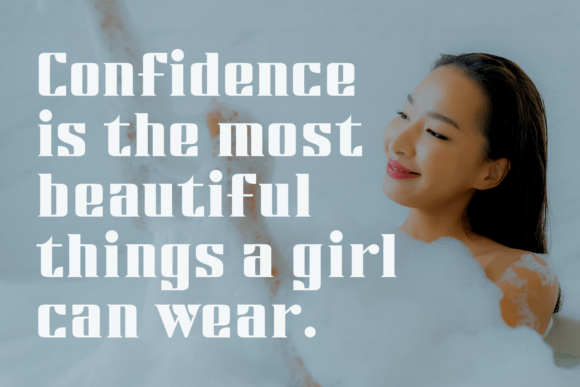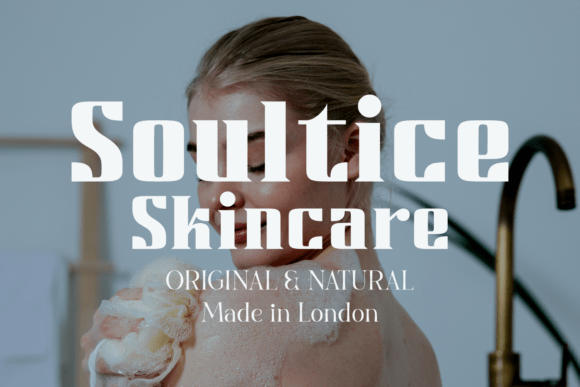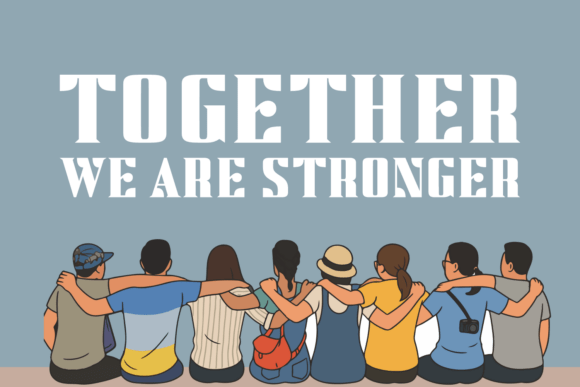
Introduction to Secret Neighbor Font Font
Fonts play a crucial role in design, and the Secret Neighbor Font font is a typeface that brings both character and versatility to any project. Whether you’re working on a branding project, a website, or a print design, the Secret Neighbor Font font offers a unique style that can elevate your work.
Secret Neighbor is a bold, minimalist serif typeface that blends sharp edges with modern sensibility.
It features strong vertical stems, blocky serifs, and a slightly vintage attitude that makes it perfect for editorial headlines, branding, and modern poster design This font is all about presence and attitude—commanding attention without losing refinement.
Key Features of Secret Neighbor Font Font
Why Choose Secret Neighbor Font Font?
The Secret Neighbor Font font is more than just a typeface – it’s a design tool that helps you communicate your message with style and clarity. Its unique character set and versatile design make it suitable for a wide range of applications, from elegant invitations to bold headlines.
With its carefully crafted letterforms and balanced proportions, the Secret Neighbor Font font ensures readability and visual appeal across all mediums.
What makes Secret Neighbor Font font special?
The Secret Neighbor Font font stands out with its unique design, exceptional readability, and versatility across various design applications.